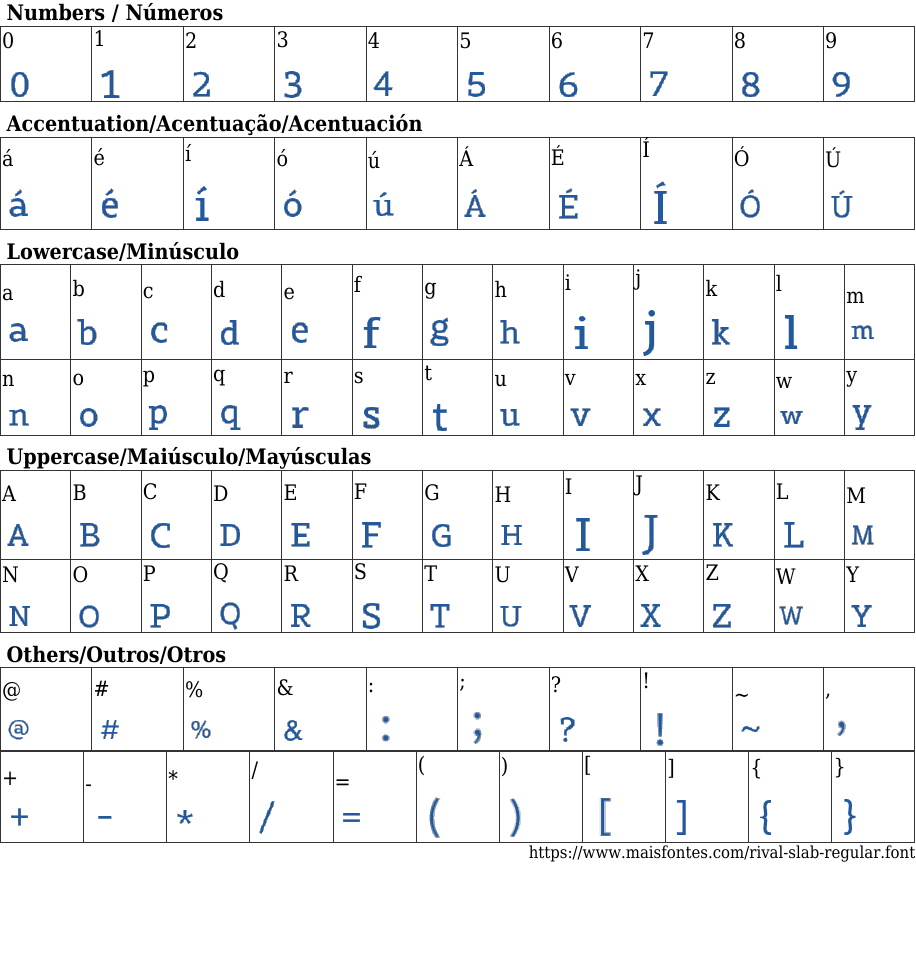
Rival Slab Black Font . This typeface has sixteen styles and was. Web buy & download rival slab black, a font by mostardesign type foundry.
Complete family of 16 fonts: Designed by olivier gourvat, rival slab is a slab serif font family. Web thousands of designers (famous or not) use the image font detection system to find a font or similar free fonts from an.
Complete family of 16 fonts: A typeface with 14 styles, available from adobe fonts for sync and web. Web buy & download rival slab black, a font by mostardesign type foundry. Web rival slab is a new opentype slab font family designed to be both readable and versatile.
Rival Slab Black Font - Designed by olivier gourvat, rival slab is a slab serif font family. This typeface has sixteen styles and was. Web explore rival designed by olivier gourvat at adobe fonts. The rival slab black font was designed by olivier gourvat. A touch of modernism for all kinds of projects like the rest of the family (rival sans and rival serif), rival.
Rival Slab Black Font - This typeface has sixteen styles and was. Learn more about its features, similar fonts, and font pairing. The rival slab black font was designed by olivier gourvat. Web explore rival designed by olivier gourvat at adobe fonts. Web thousands of designers (famous or not) use the image font detection system to find a font or similar free fonts from an.
Rival Slab Black Font - The rival slab black font was designed by olivier gourvat. Web rival slab black is the perfect font for all your fun designs. Web buy & download rival slab black, a font by mostardesign type foundry. Designed by olivier gourvat, rival slab is a slab serif font family. Web thousands of designers (famous or not) use the image font detection.
Rival Slab Black Font - Learn more about its features, similar fonts, and font pairing. A typeface with 14 styles, available from adobe fonts for sync and web. This typeface has sixteen styles and was. Web rival slab black is the perfect font for all your fun designs. Web explore rival designed by olivier gourvat at adobe fonts.
Rival Slab Black Font - Web rival slab black is the perfect font for all your fun designs. Web explore rival designed by olivier gourvat at adobe fonts. A typeface with 14 styles, available from adobe fonts for sync and web. Designed by olivier gourvat, rival slab is a slab serif font family. Web buy & download rival slab black, a font by mostardesign type.
Rival Slab Black Font - Learn more about its features, similar fonts, and font pairing. A typeface with 14 styles, available from adobe fonts for sync and web. Complete family of 16 fonts: The rival slab black font was designed by olivier gourvat. Web rival slab is a new opentype slab font family designed to be both readable and versatile.
Rival Slab Black Font - A touch of modernism for all kinds of projects like the rest of the family (rival sans and rival serif), rival slab has. Web rival slab black is the perfect font for all your fun designs. Web rival slab is a new opentype slab font family designed to be both readable and versatile. Learn more about its features, similar fonts,.
Rival Slab Black Font - Learn more about its features, similar fonts, and font pairing. Web buy & download rival slab black, a font by mostardesign type foundry. This typeface has sixteen styles and was. Web rival slab is a new opentype slab font family designed to be both readable and versatile. The rival slab black font was designed by olivier gourvat.
Rival Slab Black Font - A touch of modernism for all kinds of projects like the rest of the family (rival sans and rival serif), rival slab has. Complete family of 16 fonts: Web rival slab is a new opentype slab font family designed to be both readable and versatile. Web thousands of designers (famous or not) use the image font detection system to find.
Rival Slab Black Font - Web rival slab black is the perfect font for all your fun designs. Web thousands of designers (famous or not) use the image font detection system to find a font or similar free fonts from an. Web rival slab is a new opentype slab font family designed to be both readable and versatile. A typeface with 14 styles, available from.
Rival Slab Black Font - Complete family of 16 fonts: This typeface has sixteen styles and was. Rival slab font family was. Learn more about its features, similar fonts, and font pairing. Web rival slab black is the perfect font for all your fun designs.
Rival Slab Black Font - Web thousands of designers (famous or not) use the image font detection system to find a font or similar free fonts from an. Web explore rival designed by olivier gourvat at adobe fonts. Web buy & download rival slab black, a font by mostardesign type foundry. Complete family of 16 fonts: Rival slab font family was.
Rival Slab Black Font - Learn more about its features, similar fonts, and font pairing. Web buy & download rival slab black, a font by mostardesign type foundry. Complete family of 16 fonts: Web rival slab is a new opentype slab font family designed to be both readable and versatile. Rival slab font family was.